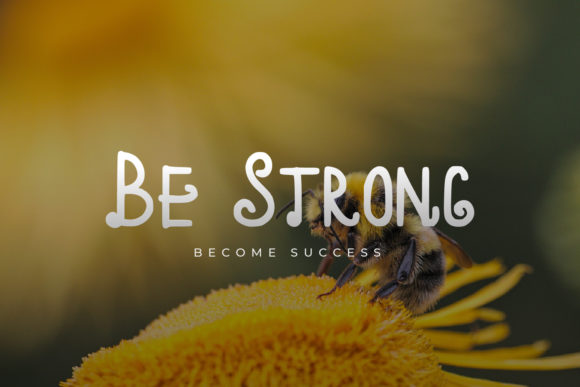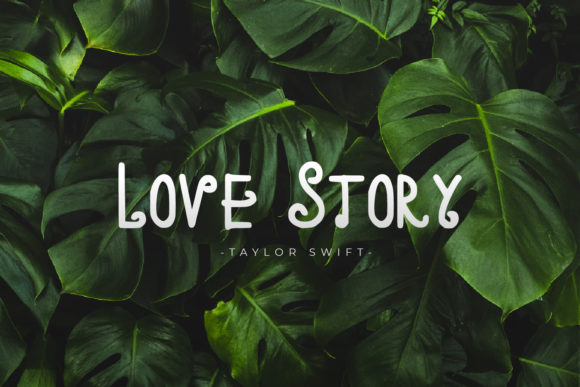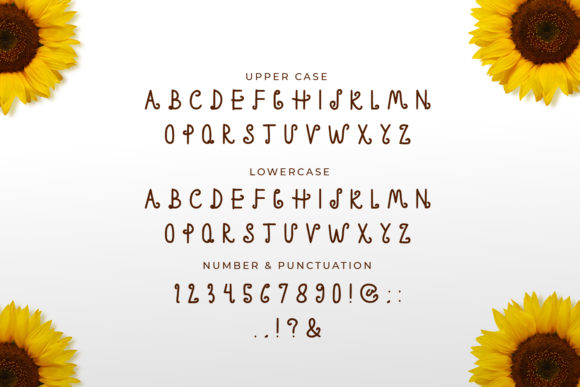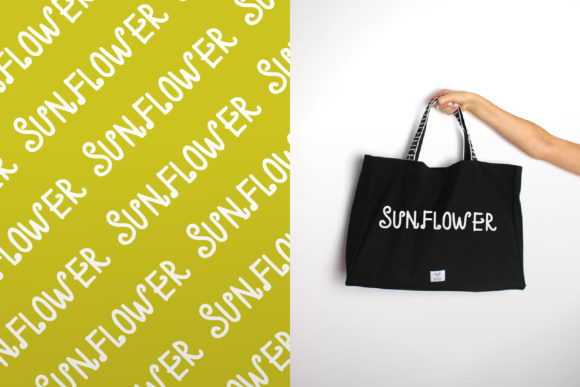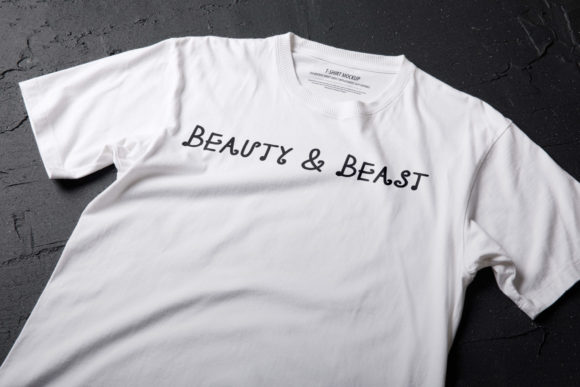
Discover the Magic of Pricilial Font
As a designer, you’ve probably found yourself staring at a blank page, waiting for the perfect font to bring your creative project to life. And then, it hits you – the perfect combination of quirky charm and readability that makes your design pop. For me, that moment was when I stumbled upon the Pricilial Font, a free download that quickly became my go-to design resource.
With its transparent background and high-quality design, Pricilial Font is the perfect addition to any creative project. Whether you’re working on a busy background or want to make a statement with a standalone headline, this font is sure to impress. Its casual charm makes it easy to read and versatile enough to fit any design style.
As a valuable resource for designers, Pricilial Font offers endless possibilities for creative expression. From social media graphics to print materials, this font is sure to elevate your designs and make them stand out from the crowd.
Key Features of Pricilial Font
- High-quality, professional font suitable for various creative projects, including graphic design and digital art.
- Transparent background design, allowing for seamless integration with any background or image.
- Available in various font sizes, including 12pt, 14pt, and 18pt, making it versatile for different design applications.
- High-resolution design (300 DPI), ensuring crisp and clear typography in print and digital formats.
- Designed as a design resource, Pricilial Font offers a unique blend of modern and elegant styles, perfect for creative projects.
Honest Review: Pricilial Font
I recently had the chance to work with the Pricilial Font, and I must say it’s been a game-changer for my creative project. As a designer, I’m always on the lookout for high-quality design resources that can elevate my work and make it stand out. Pricilial Font definitely fits the bill.
- ✨ The font is incredibly versatile and can be used for a wide range of creative projects, from logos to brochures.
- ✨ The transparent background option is a huge plus, making it easy to customize and integrate into my designs.
One of the things that really impressed me about the Pricilial Font is its high quality. The typography is clean and crisp, and it’s clear that a lot of thought and care went into designing it.
- ⚠️ The font may not be suitable for very large-scale designs, as it can become pixelated when enlarged.
Overall, I’m really impressed with the Pricilial Font and would highly recommend it to anyone looking for a high-quality, versatile design resource.
How to Use Pricilial Font
Pricilial Font is a versatile and stylish design resource ideal for various creative projects. This high-quality font is perfect for adding a touch of elegance and sophistication to your designs.
Getting the Most Out of Pricilial Font
To get the most out of Pricilial Font, use it with a transparent background to create a seamless design. You can also experiment with different font sizes, colors, and styles to add visual interest to your project.
Pricilial Font is perfect for various design projects, including:
Alternatives to Pricilial Font
Alegreya Sans is a high-quality sans-serif font suitable for creative projects that require a clean and modern look. It is available for free download and can be used for both web and print design. When to use: Alegreya Sans is ideal for design resources that need a transparent background and a minimalist aesthetic.
Comparison to Pricilial Font: Alegreya Sans has a more modern and sleek appearance compared to Pricilial Font, which has a more traditional and elegant feel.
Montserrat is a geometric sans-serif font that is perfect for design projects that require a strong and modern look. It is available for free download and can be used for both web and print design. When to use: Montserrat is ideal for design resources that need a bold and eye-catching aesthetic.
What is the resolution of the Pricilial Font?
The Pricilial Font is designed with a high level of detail, making it suitable for both screen and print use. The font’s resolution is optimized for use at 300 DPI or higher, ensuring that the text remains clear and legible even at larger sizes.